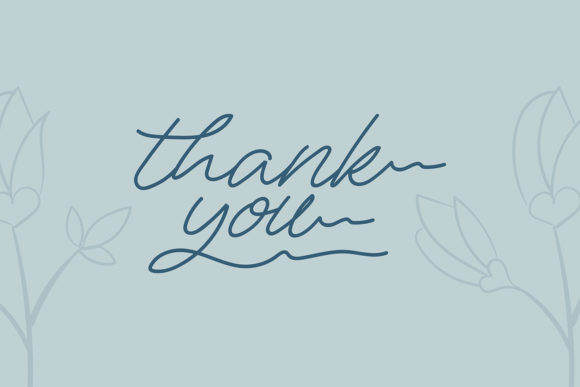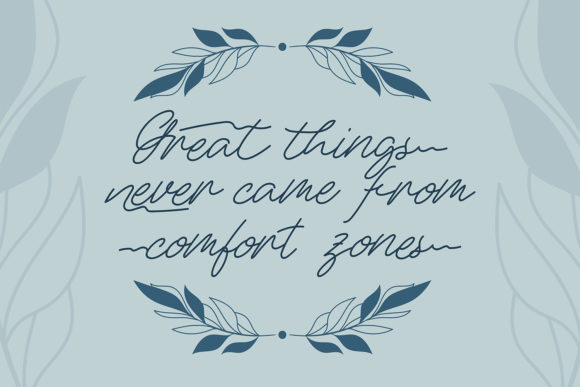
Introduction to Romanticas Font
Have you ever been working on a creative project, pouring your heart and soul into it, only to feel like something’s missing? That’s when I stumbled upon the Romanticas Font – a delicate and distinct handwritten font that breathed new life into my design. Its incredibly relaxed and versatile vibe instantly made me feel at ease, and I knew I had to share it with fellow designers.
As a designer, you’re constantly on the lookout for high-quality design resources that can elevate your work. The Romanticas Font is one such gem – available for free download and boasting a transparent background that makes it perfect for layering and experimentation.
Key Features of Romanticas Font
- High-quality design resource for creative projects, including wedding invitations, greeting cards, and more.
- Includes a transparent background, allowing for easy integration into various design elements.
- Features a beautiful, elegant script with a romantic touch, making it ideal for creative projects.
- Size: 5,000+ glyphs, providing a comprehensive character set for various languages and design needs.
Honest Review: Romanticas Font
As a designer, I’m always on the lookout for high-quality design resources that can elevate my creative projects. Recently, I stumbled upon the Romanticas Font, and I’m excited to share my honest review with you.
What works well: ✨ The Romanticas Font is incredibly versatile and can be used for a wide range of creative projects, from wedding invitations to blog headers. The font is also available for free download, making it a fantastic design resource for designers on a budget. The high-quality design and transparent background make it perfect for layering and blending with other design elements.
- ✨ Great for wedding invitations, blog headers, and other creative projects
- ✨ High-quality design and transparent background
Limitations: ⚠️ While the Romanticas Font is a great addition to any designer’s toolkit, it may not be suitable for projects that require a more modern or edgy look. Additionally, some users may find the font’s romantic and whimsical style too cutesy for certain applications.
Overall impression: I’m really impressed with the Romanticas Font, and I think it’s a fantastic design resource for any creative project that requires a touch of elegance and sophistication. While it may have some limitations, I believe the benefits far outweigh the drawbacks.
Tips for Getting the Most Out of Romanticas Font
Experiment with different font sizes, colors, and combinations to create unique and eye-catching designs. Use the font in conjunction with other design elements, such as images and graphics, to add depth and interest to your project.
The Romanticas Font is ideal for a wide range of creative projects, including wedding invitations, social media graphics, posters, flyers, business cards, and presentations. Its high-quality design and transparent background make it perfect for designs that require a touch of elegance and sophistication.